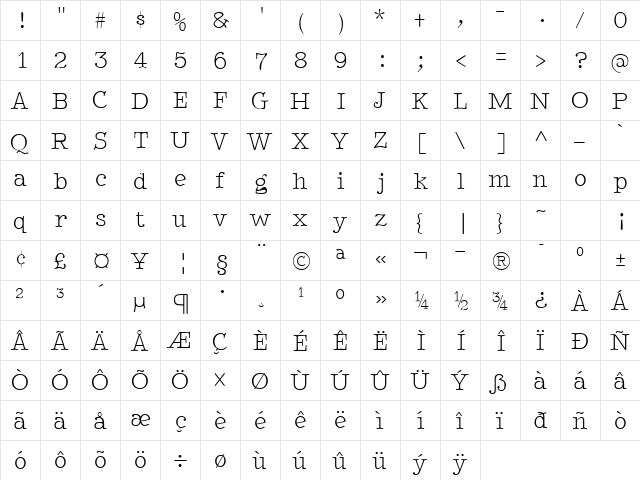
BetterTypeRightThin Regular
Design Context for BetterTypeRightThin Typeface
BetterTypeRightThin is a composed and adaptable typeface that performs quietly and consistently across a wide range of design contexts. Its slender proportions lend an understated elegance to any composition.